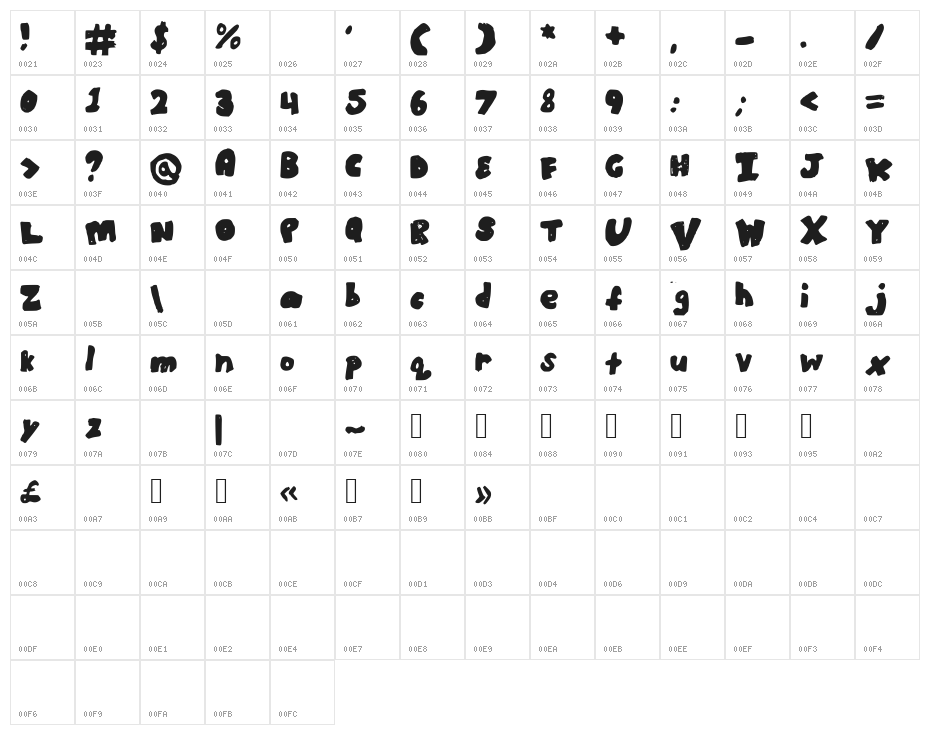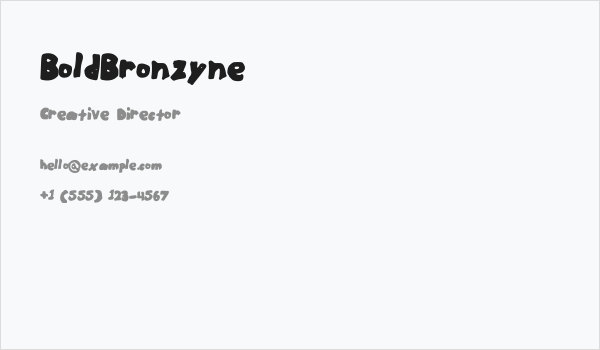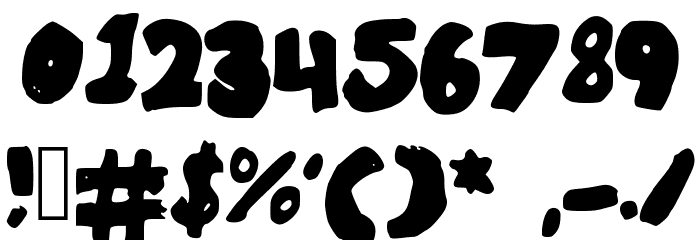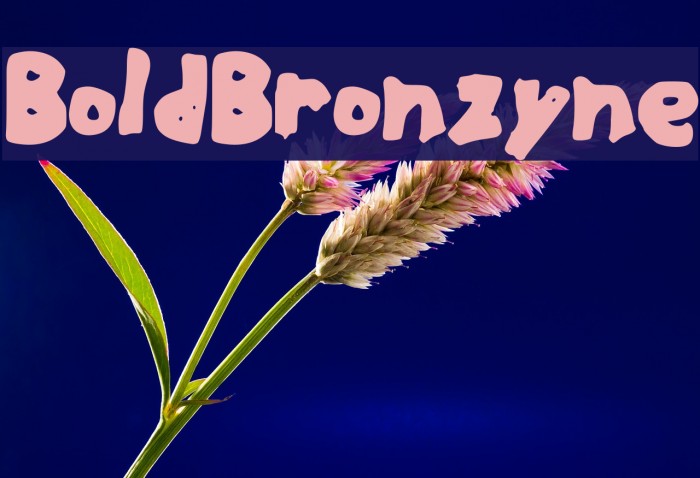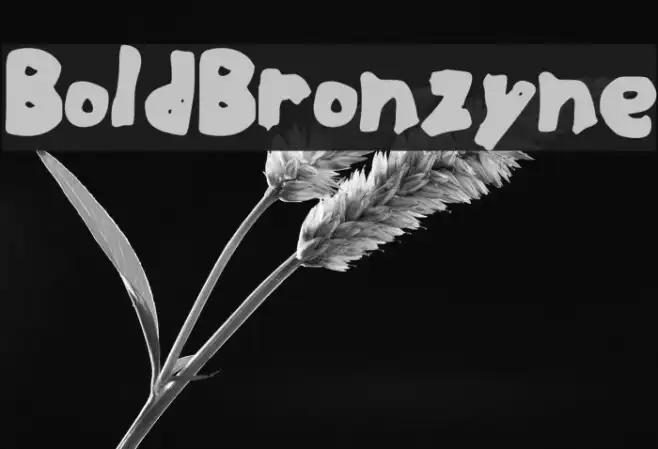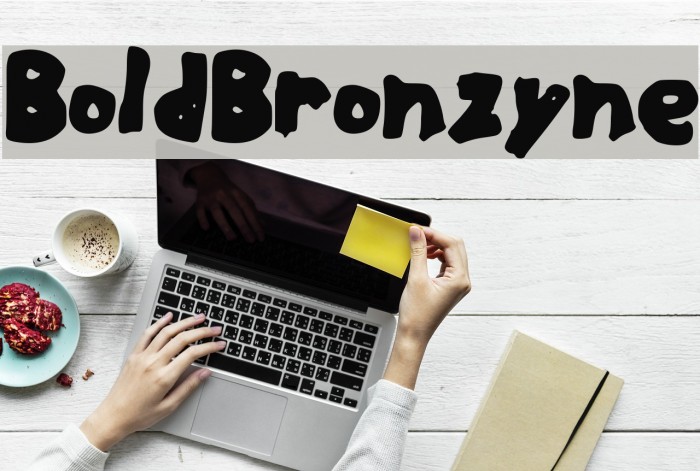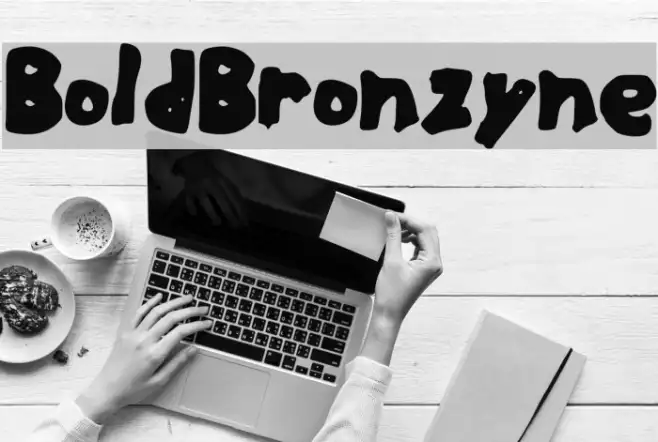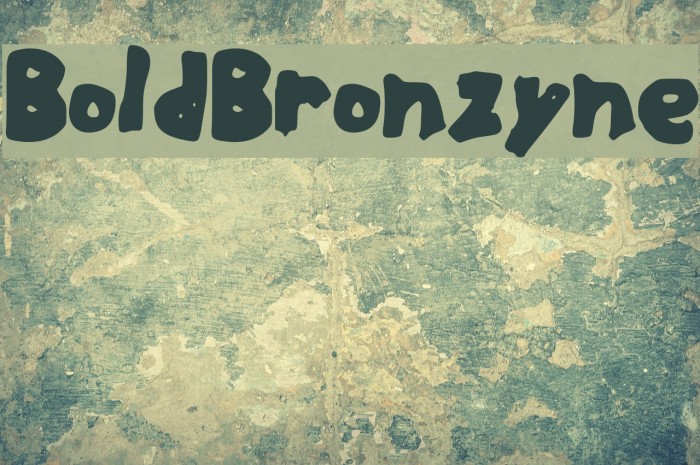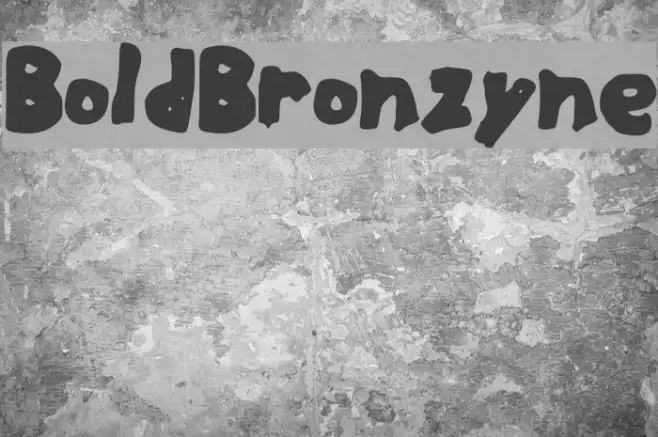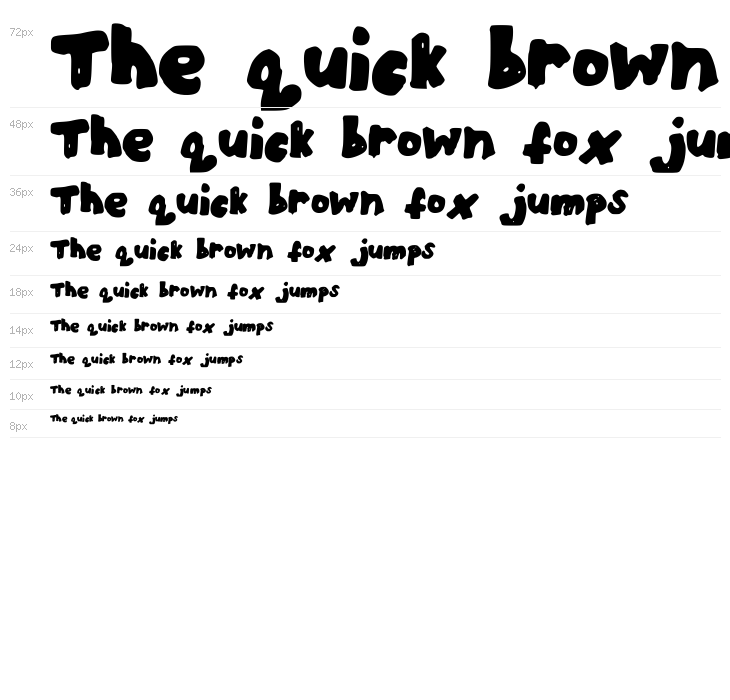
BoldBronzyne Font
BoldBronzyne Description
This font features a bold and playful design with thick, uneven strokes that give it a hand-drawn appearance. The characters are rounded and slightly irregular, adding a whimsical touch. The uppercase and lowercase letters maintain a consistent style, with the uppercase being slightly more pronounced. Numbers and special characters follow the same bold and quirky aesthetic, making them stand out. The overall look is casual and fun, suitable for projects that require a lively and informal vibe.
| Overall Style | Playful, Casual |
| Proposed Projects | Ideal for children's books, comic strips, playful branding, and casual invitations. |